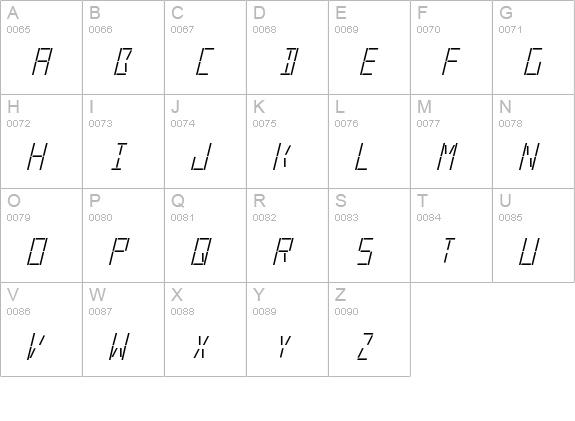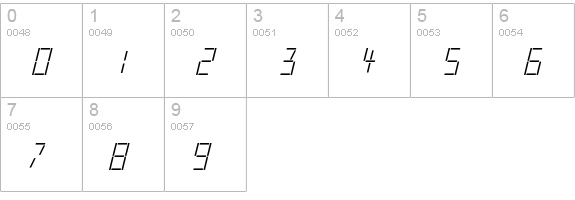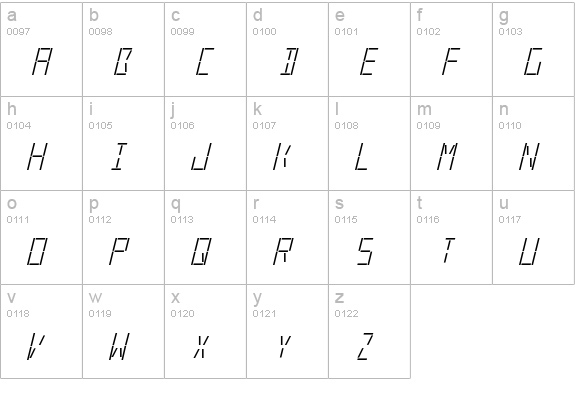
LED Real Italic Font Details
LED Real Italic is a distinctive, italic variant in the LED typeface family \xE2\x80\x94 well suited to design and typography projects.
Introducing LED Real Italic, a stunningly stylish font that adds a touch of modernity and sophistication to any design project. This captivating typeface embodies the perfect blend of contemporary elegance and dynamic flair, making it an excellent choice for a wide range of applications. LED Real Italic features sleek and slender letterforms with a subtle italic slant, creating a sense of movement and energy. Its sharp edges and clean lines give it a distinct futuristic feel, while its bold and confident presence commands attention. This font is perfect for headlines, logos, branding materials, advertisements, posters, and any other design project that requires a strong visual impact. One of the most appealing aspects of LED Real Italic is that it is available for free download at FontsMarket.com. This means that you can easily access and utilize this remarkable font without any financial constraints. Whether you are a professional graphic designer or a casual enthusiast, this free font offers you the opportunity to enhance your creations with a touch of contemporary brilliance. With LED Real Italic, you can effortlessly elevate your designs to a whole new level. Its versatility allows it to adapt to various themes and styles, from futuristic and high-tech to sleek and minimalistic. This font is designed to make a lasting impression and leave a memorable mark on your audience. So why wait? Take advantage of the opportunity to freely download LED Real Italic at FontsMarket.com and unlock the potential to create visually stunning and impactful designs. Embrace the modernity and elegance that this font brings, and let your creativity shine with every stroke of the keyboard. Give your projects a touch of sophistication and captivate your viewers with the allure of LED Real Italic.